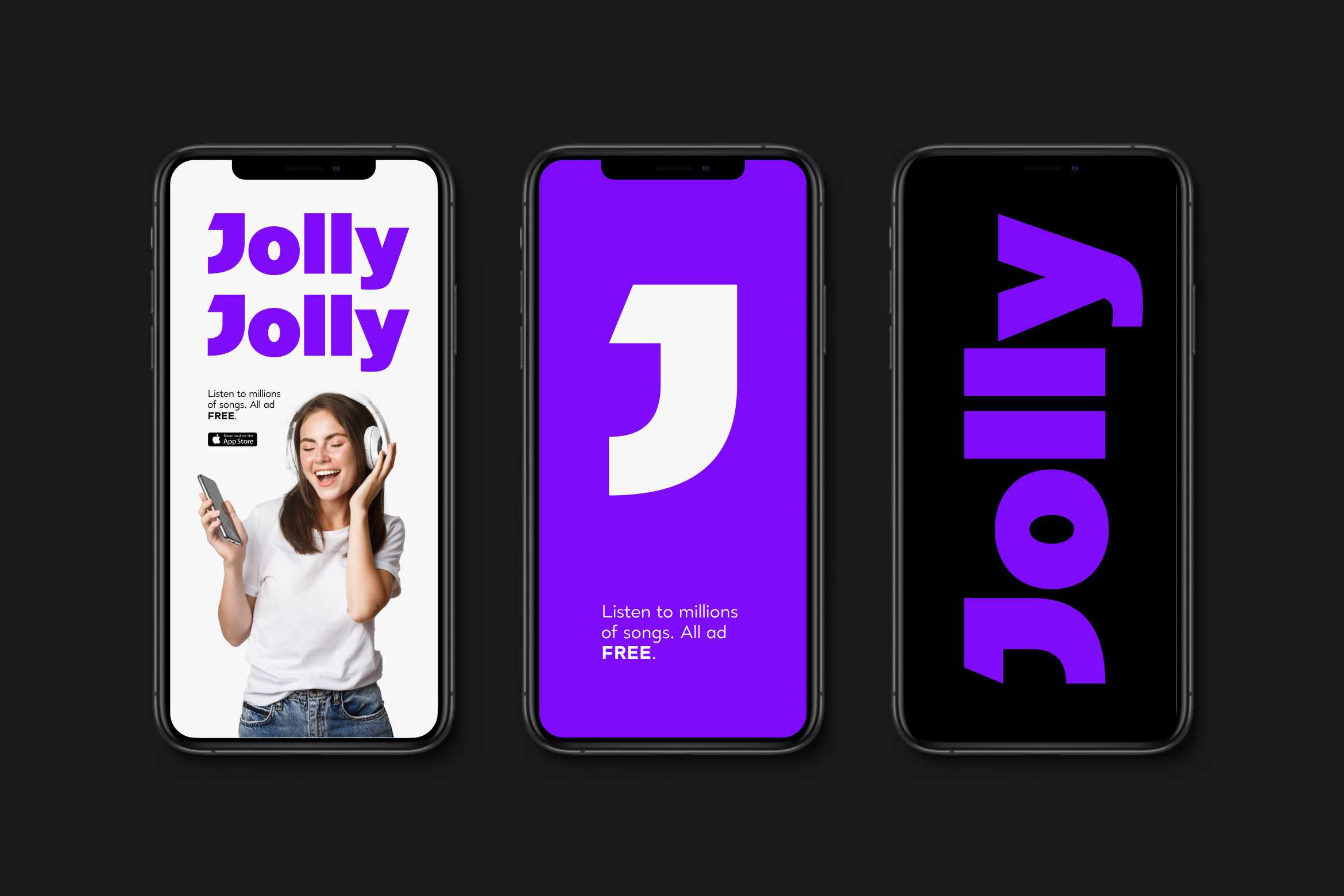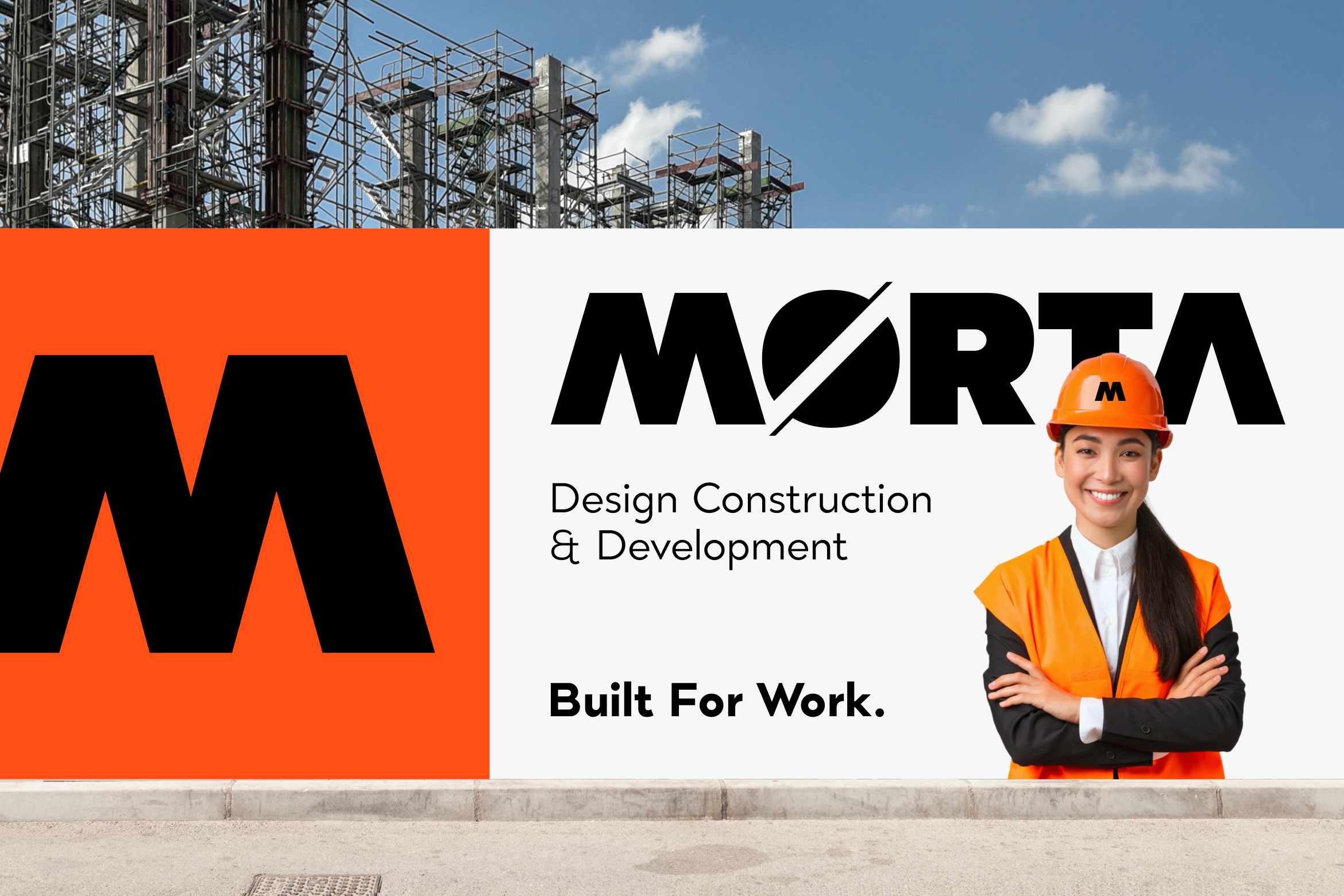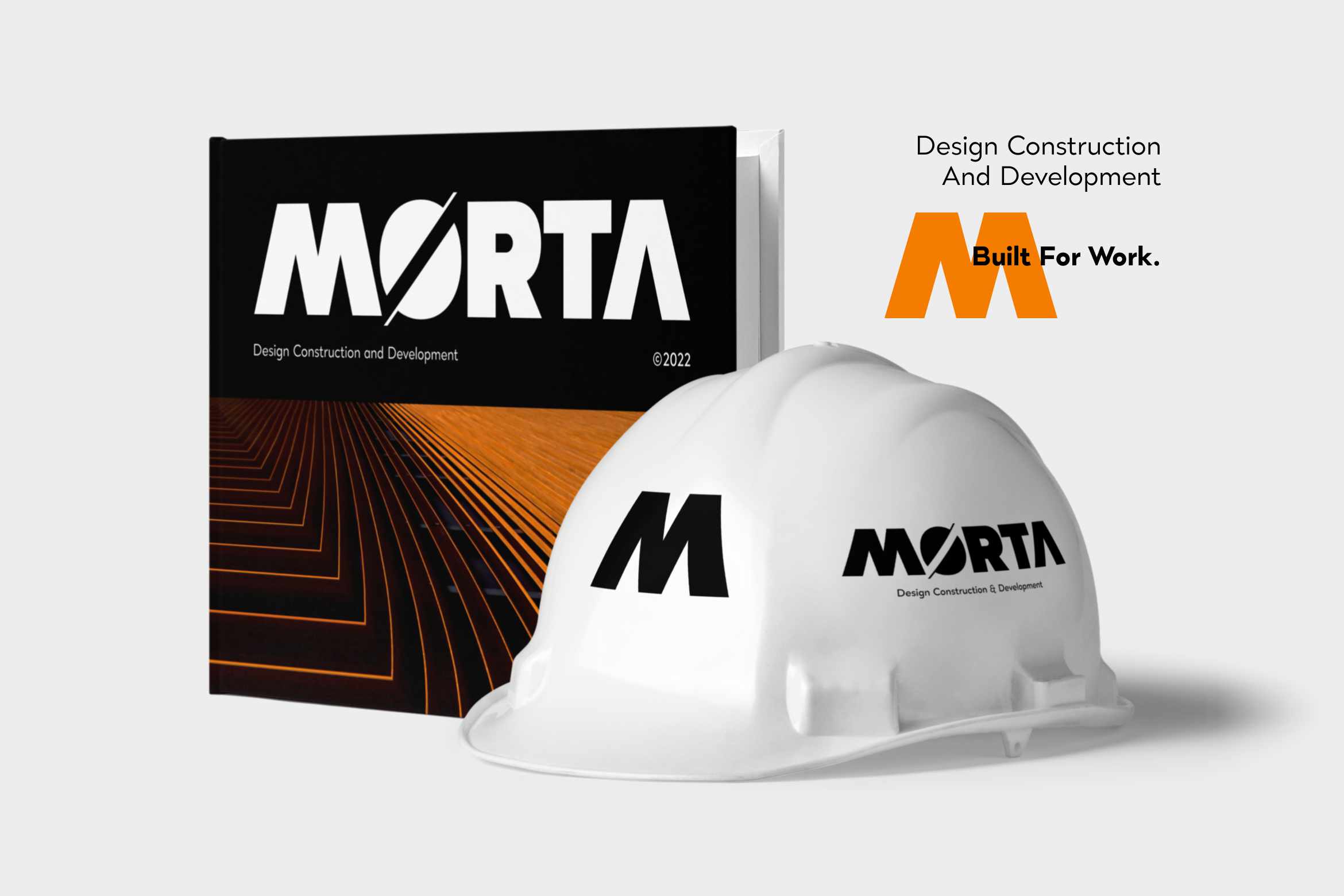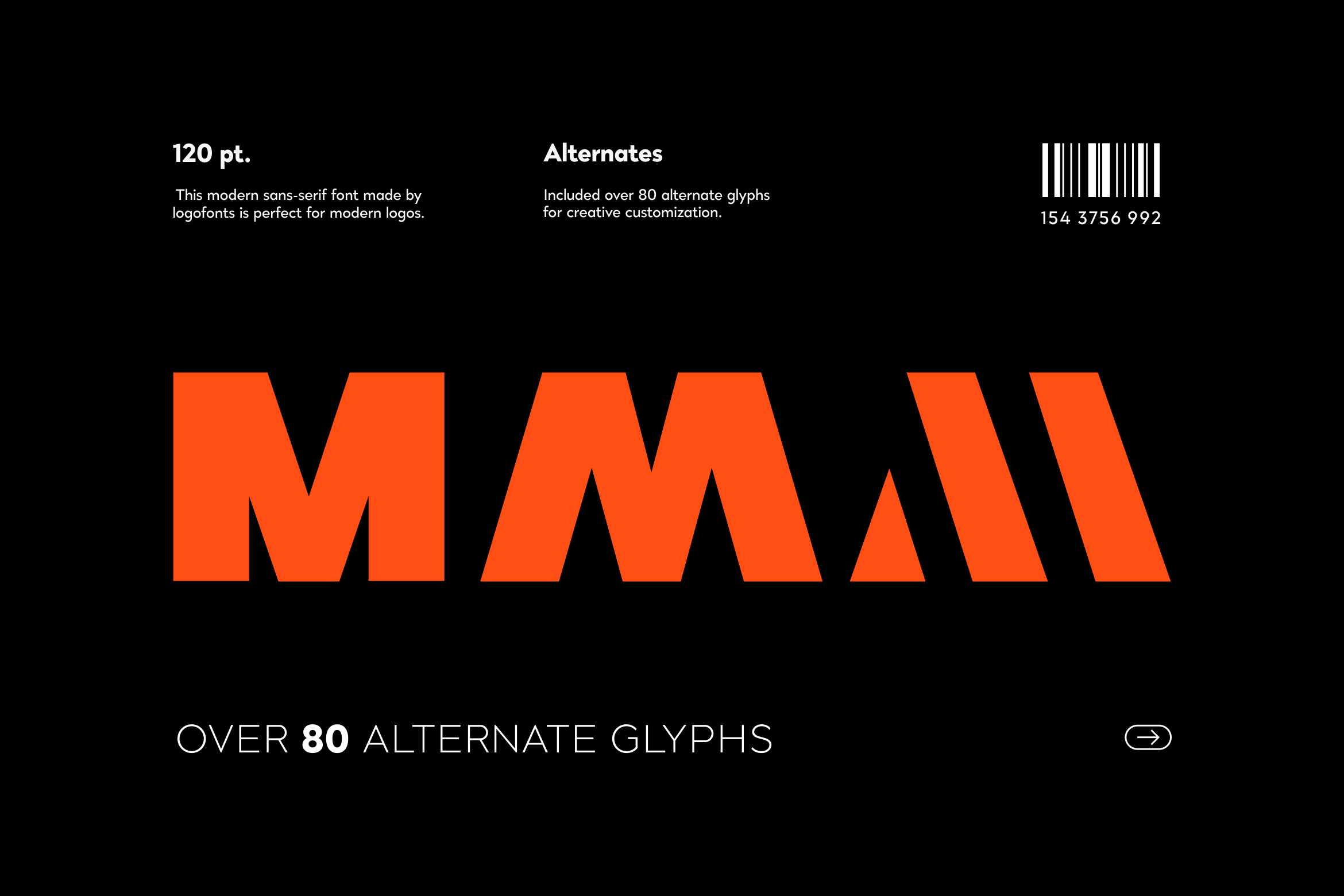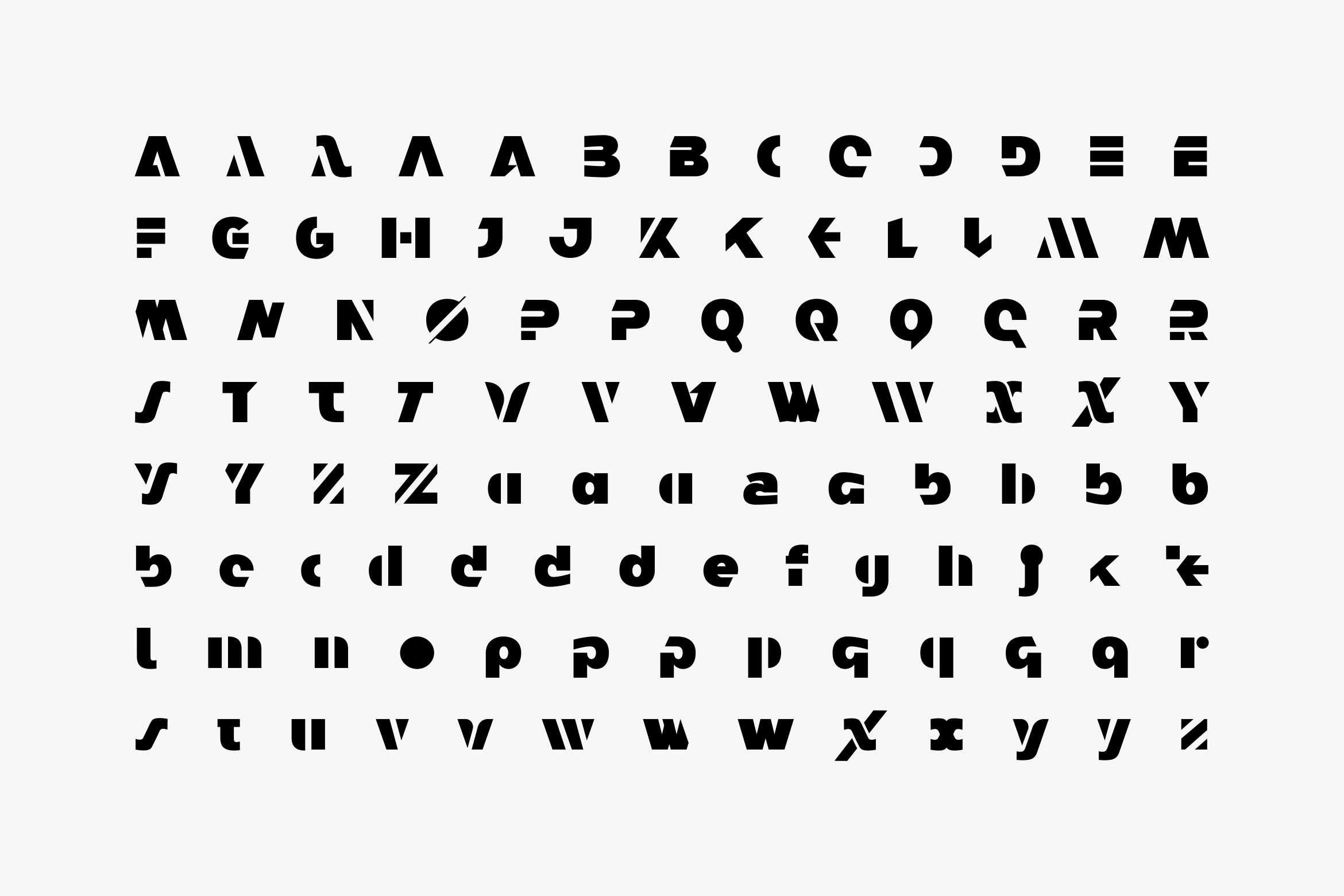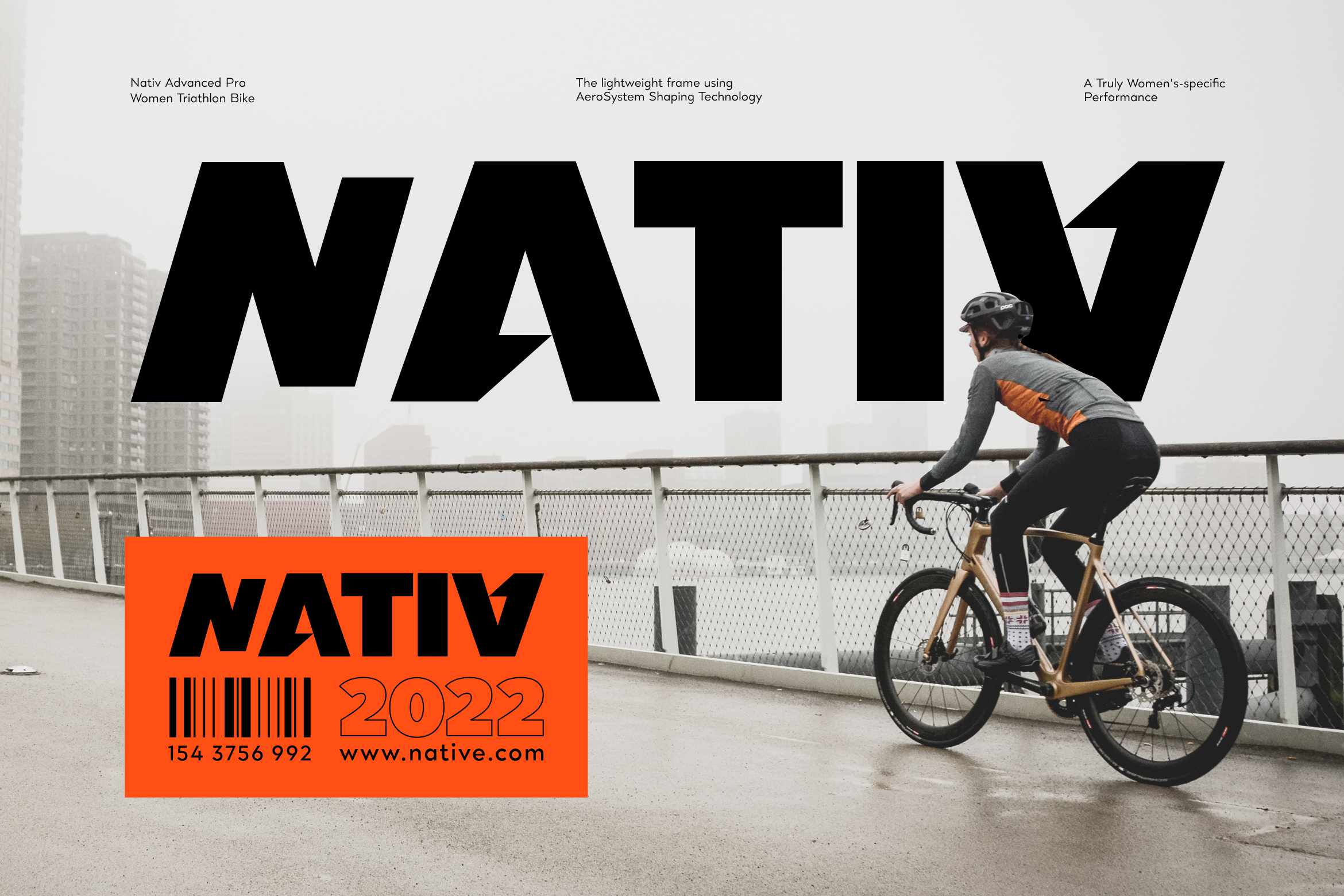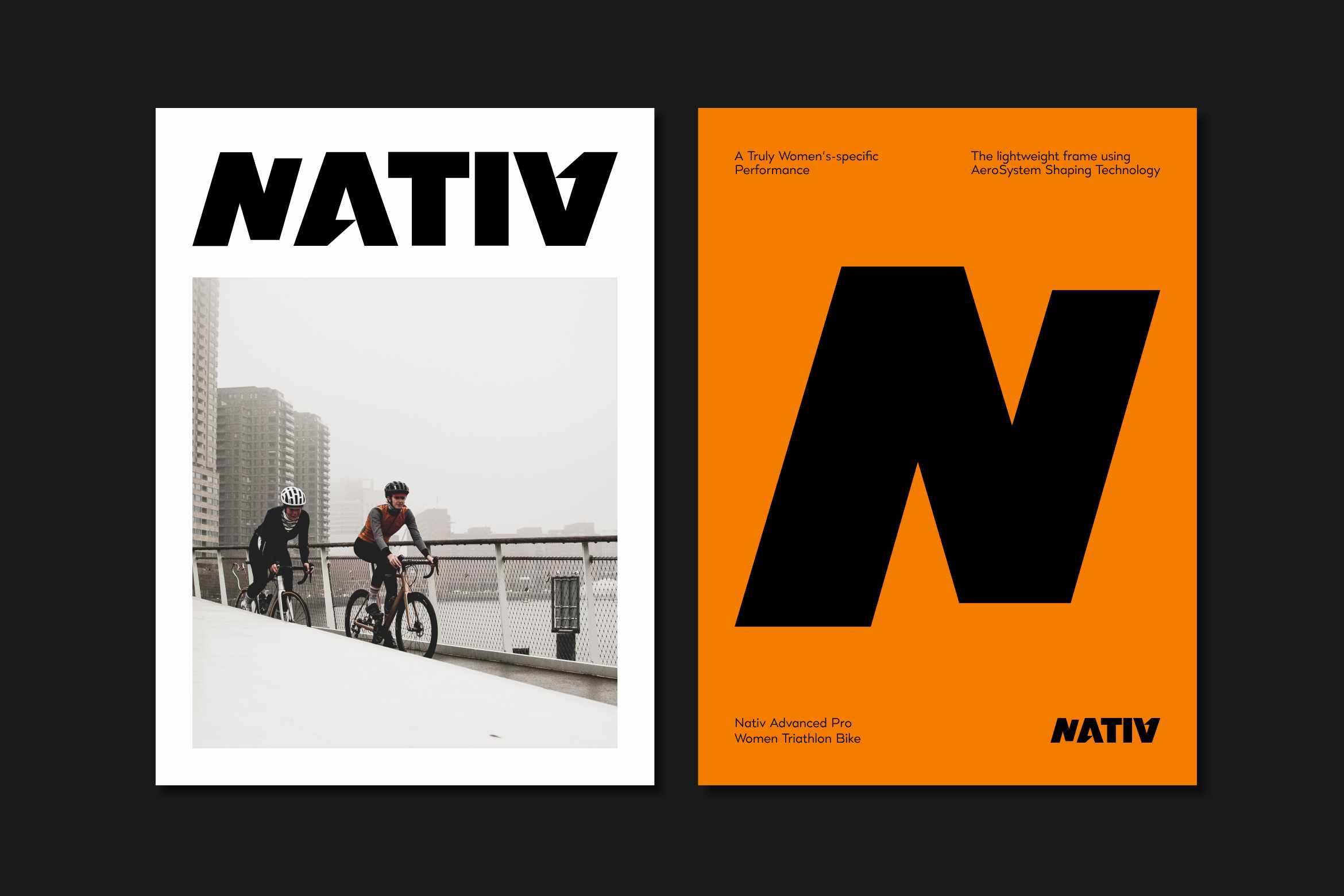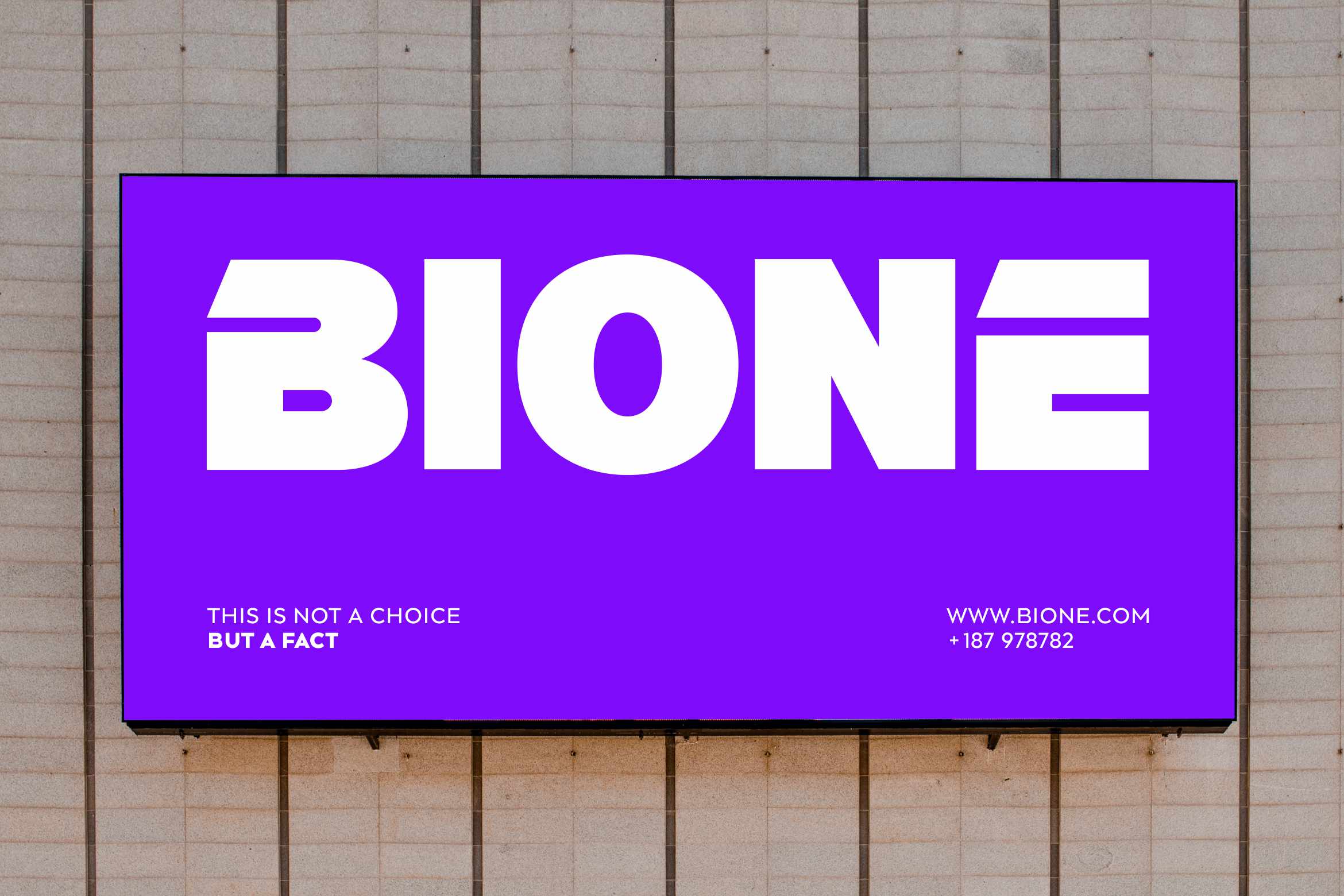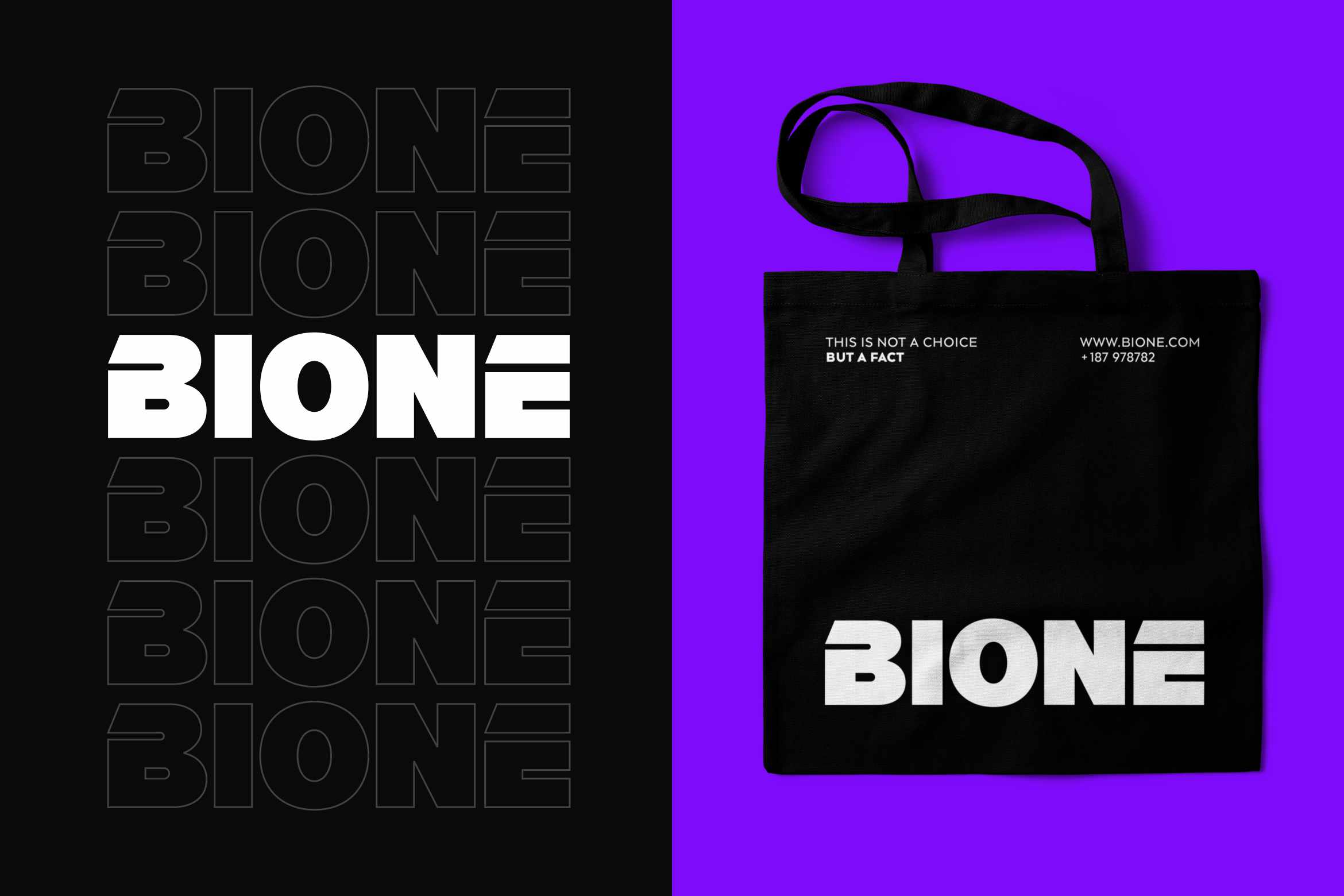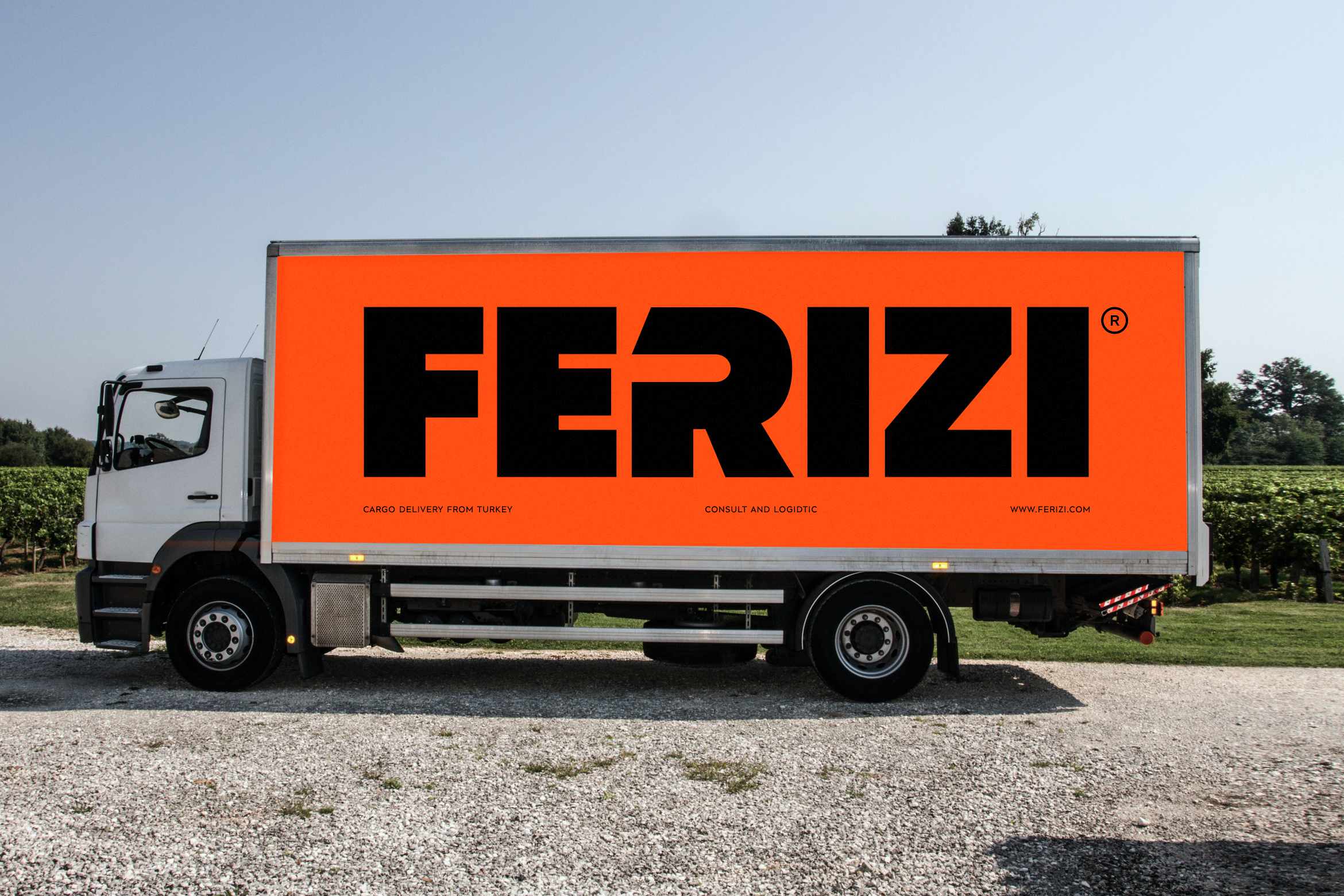
Profont Sans
Glyphs for ProfontSans
Profont Sans is a powerful and ultra-bold sans serif typeface designed for impact and visibility. Its sharp geometry and commanding presence make it ideal for display purposes, such as branding, packaging, billboards, and signage. With its solid structure and strong typographic rhythm, this font conveys authority and professionalism across various industries.
Included with alternate glyphs, ligatures, and multilingual support, Profont Sans provides flexibility for creative branding projects. Whether used on transport fleets, tech packaging, or urban posters, this font ensures your message is loud, clear, and unmistakably modern.